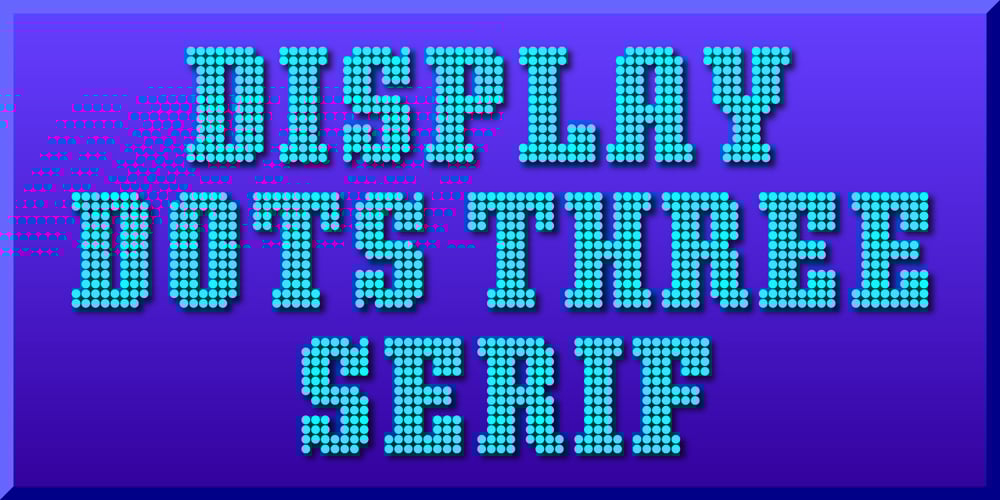
Display Dots Three Serif Font Family was designed by Gerald Gallo and published by Gerald Gallo. Display Dots Three Serif contains 1 styles and family package options. Display Dots Three Sans and Serif are display fonts not intended for text use. They were designed specifically for display, headline, logotype, branding, and similar applications. Display Dots Three Sans and Serif include an uppercase alphabet, numbers, and punctuation.